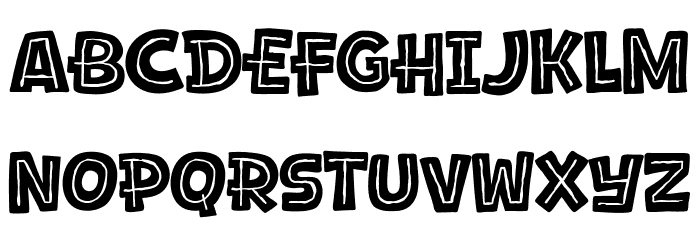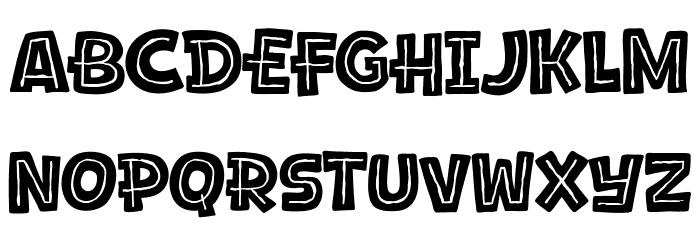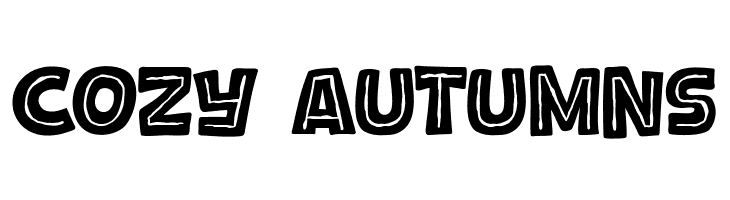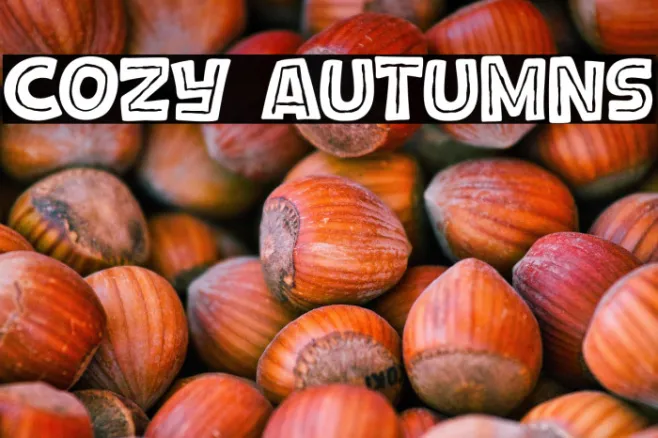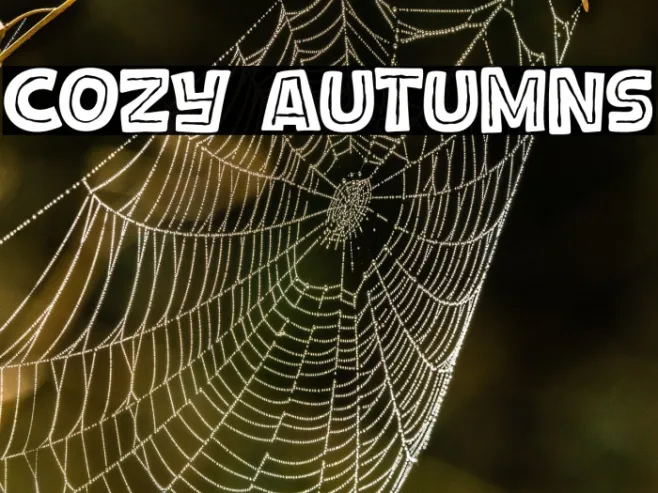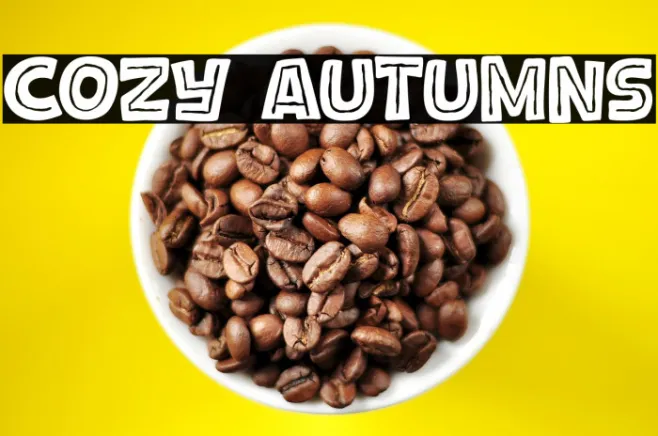
Cozy Autumns Font
A bold, playful font with a hand-drawn, cartoonish style, featuring thick strokes and a slightly uneven baseline.
Bold, playful, hand-drawn font.
- Proposed Projects: Children's books, posters, playful branding.
- Overall Style: Playful, Cartoonish
- Use Case: Headlines, Posters, Branding